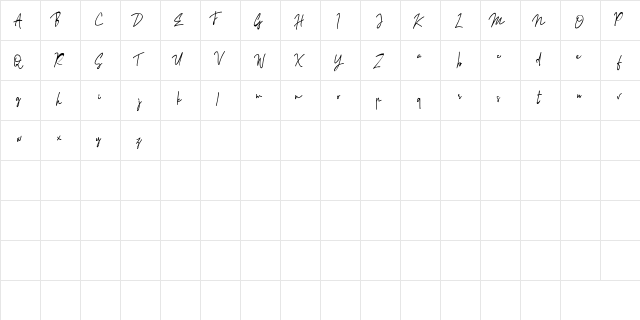
Sinteria Regular
Design Context for Sinteria Typeface
Sinteria is a composed and adaptable typeface that performs quietly and consistently across a wide range of design contexts.
Pro Tip: Use Sinteria in both headline and body roles to test its range before committing to a single application.